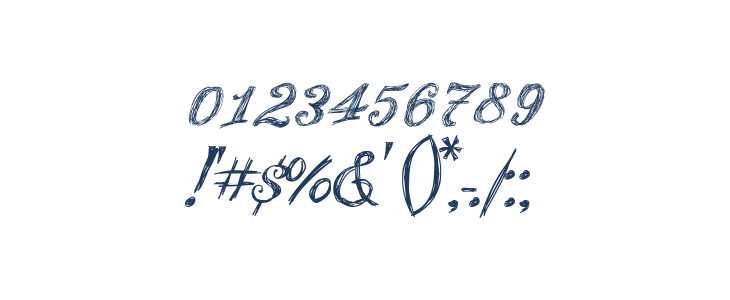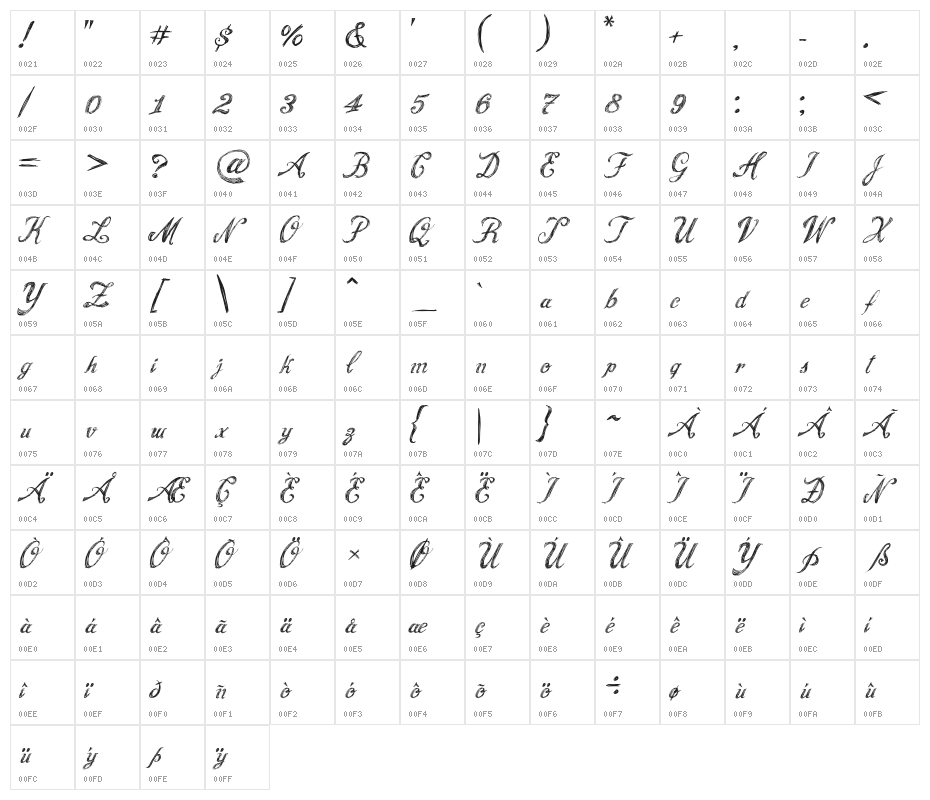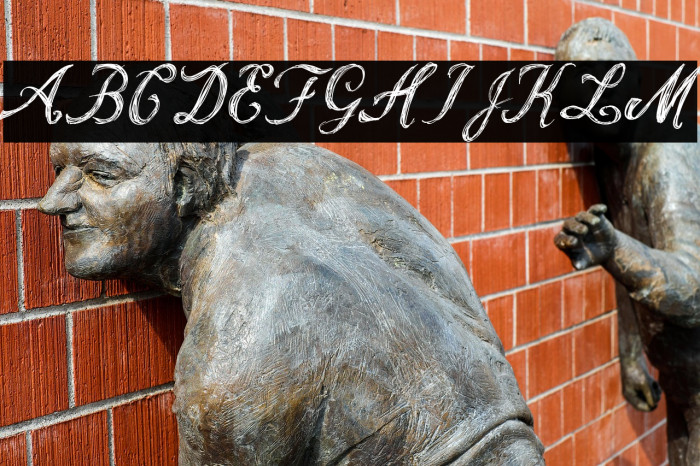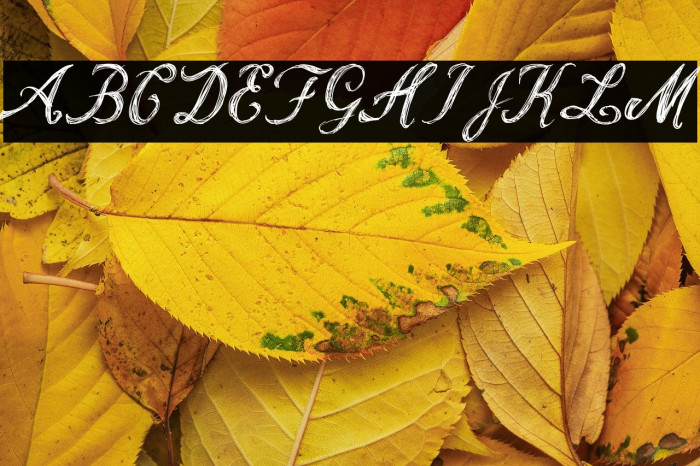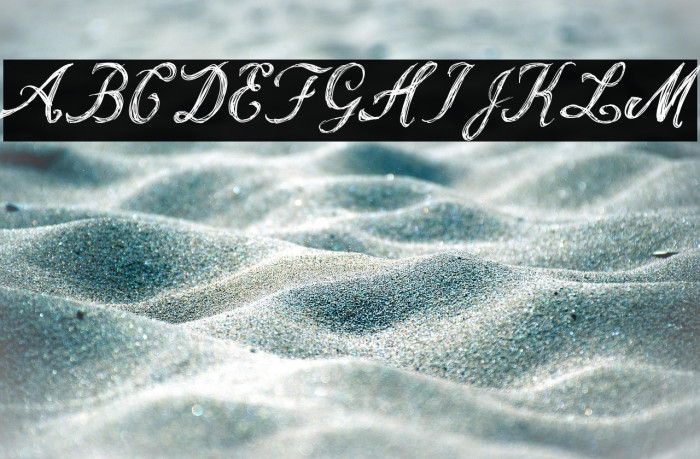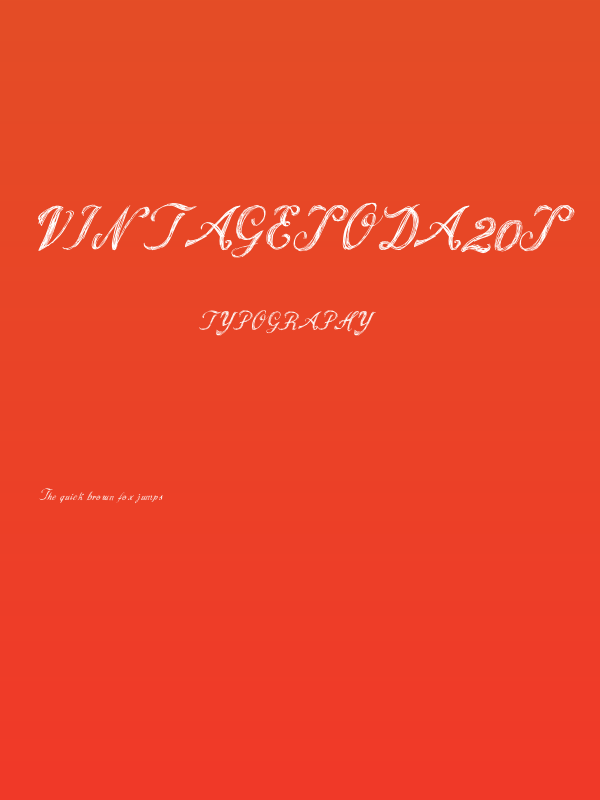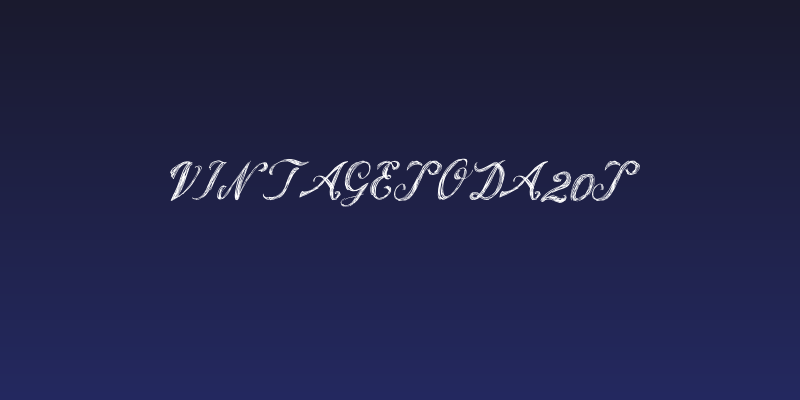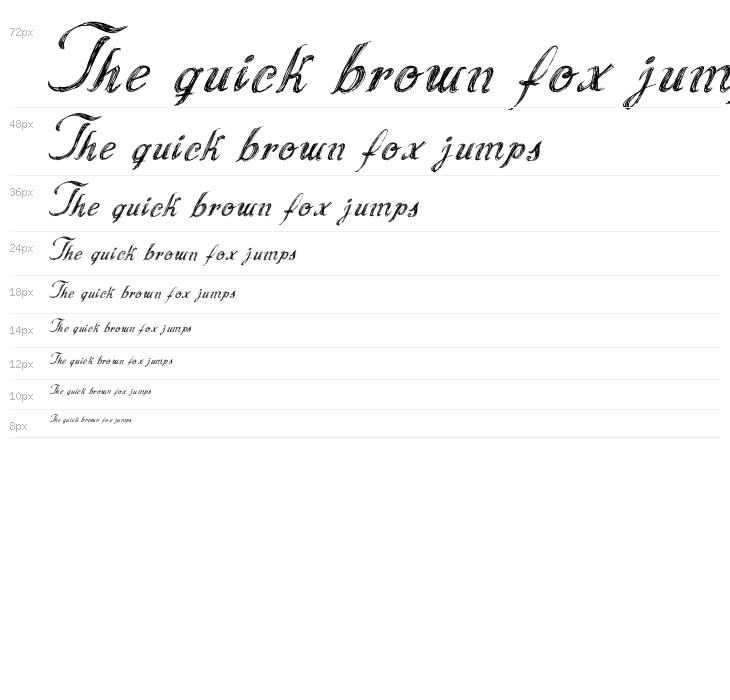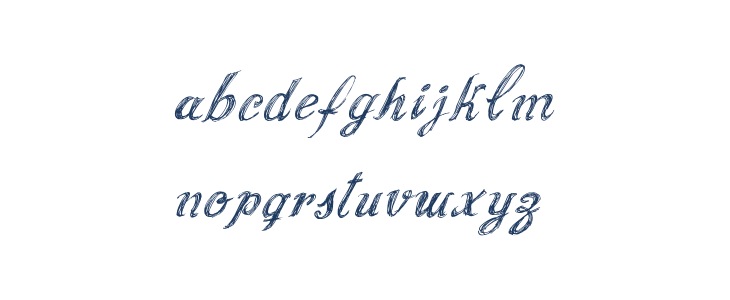
VintageSoda20s Font
VintageSoda20s Description
This font exudes a vintage charm reminiscent of the 1920s, characterized by its elegant and flowing script style. The letters are intricately designed with a hand-drawn appearance, featuring decorative swirls and loops that add a touch of sophistication. The uppercase letters stand tall with a slight slant, while the lowercase letters maintain a consistent flow, creating a harmonious balance. Numbers and special characters are crafted with the same attention to detail, ensuring a cohesive look across all elements. The overall aesthetic is both classic and artistic, making it ideal for projects that require a touch of nostalgia and elegance.
| Use Case | Logos, Invitations, Decorative Headlines |
| Proposed Projects | Ideal for vintage-themed designs, wedding invitations, branding for luxury products, and artistic posters. |